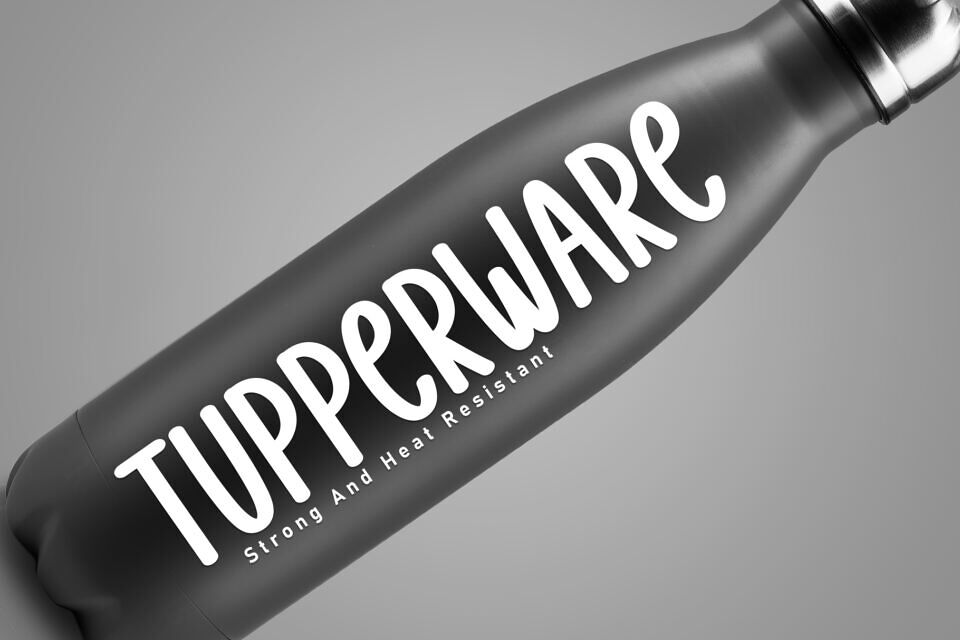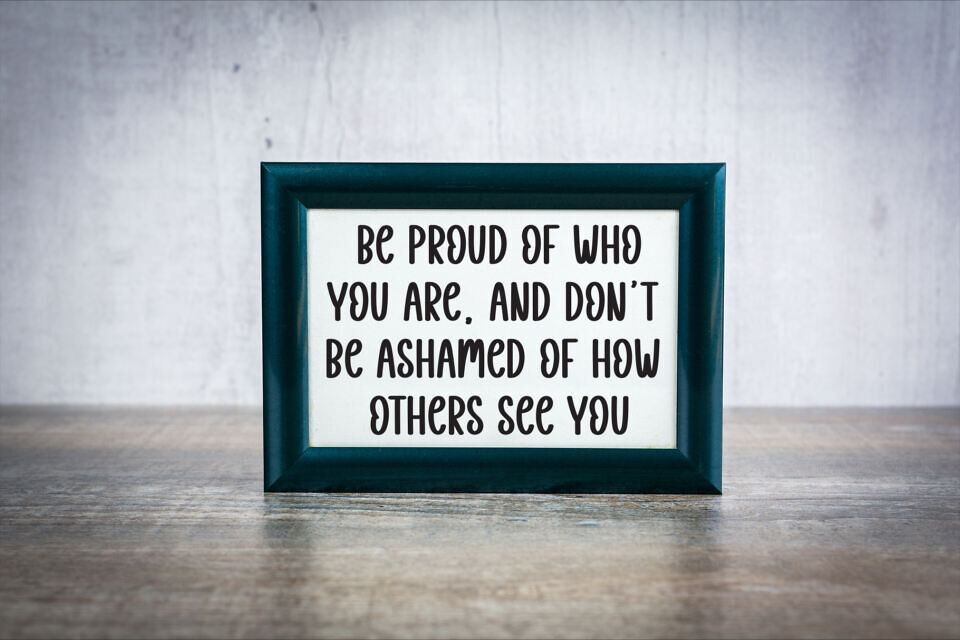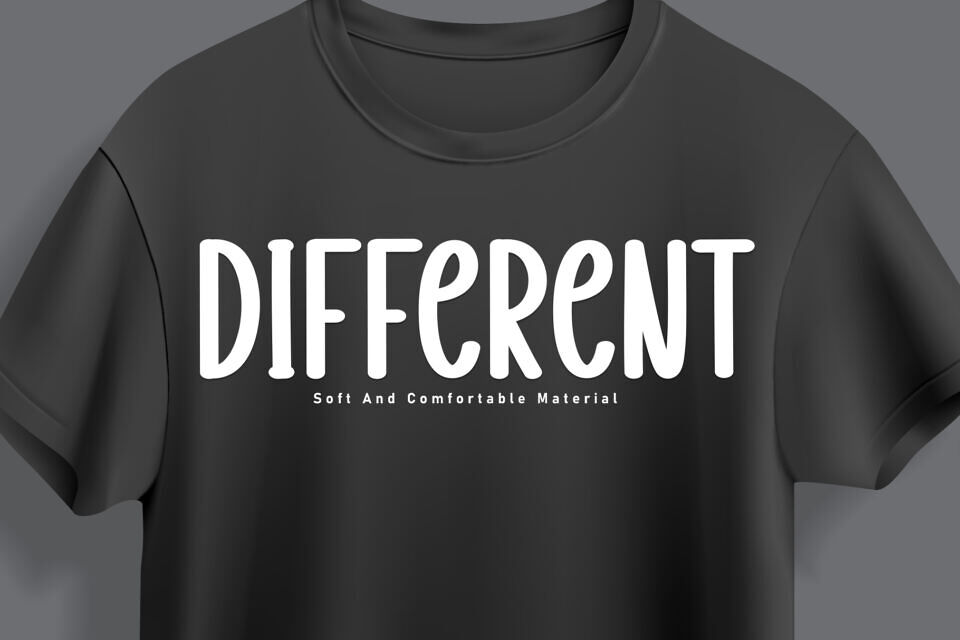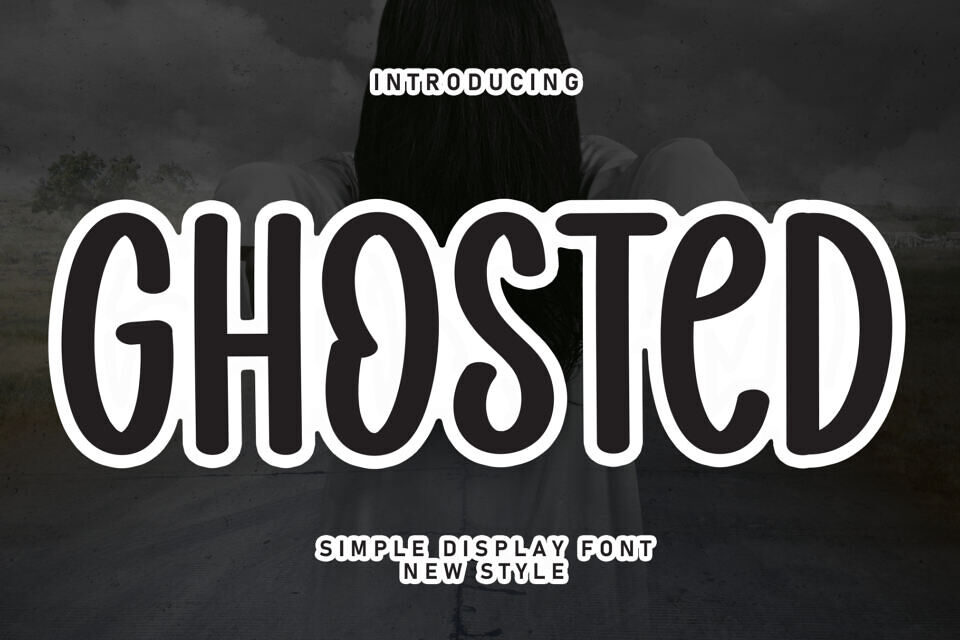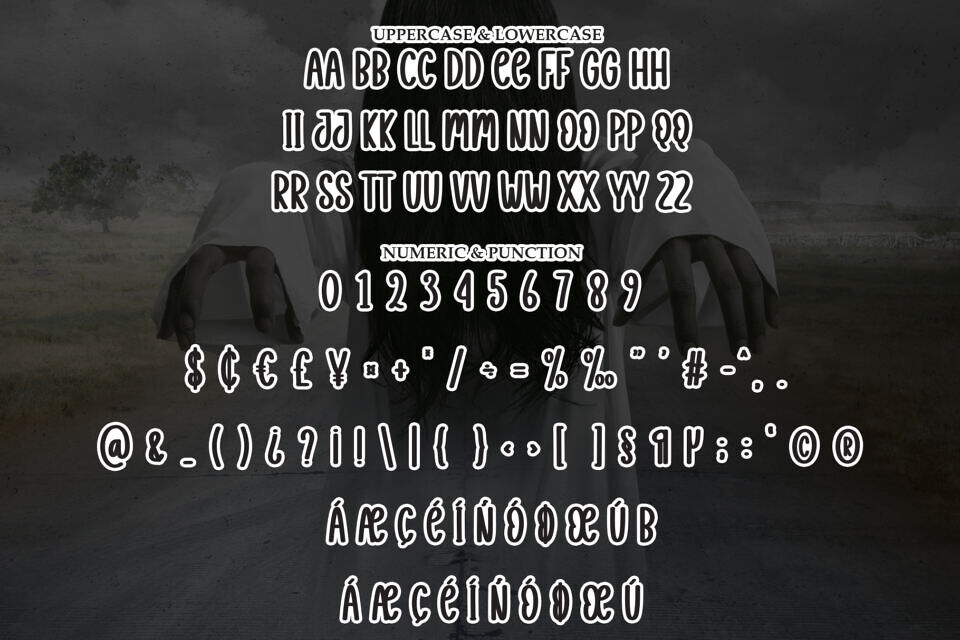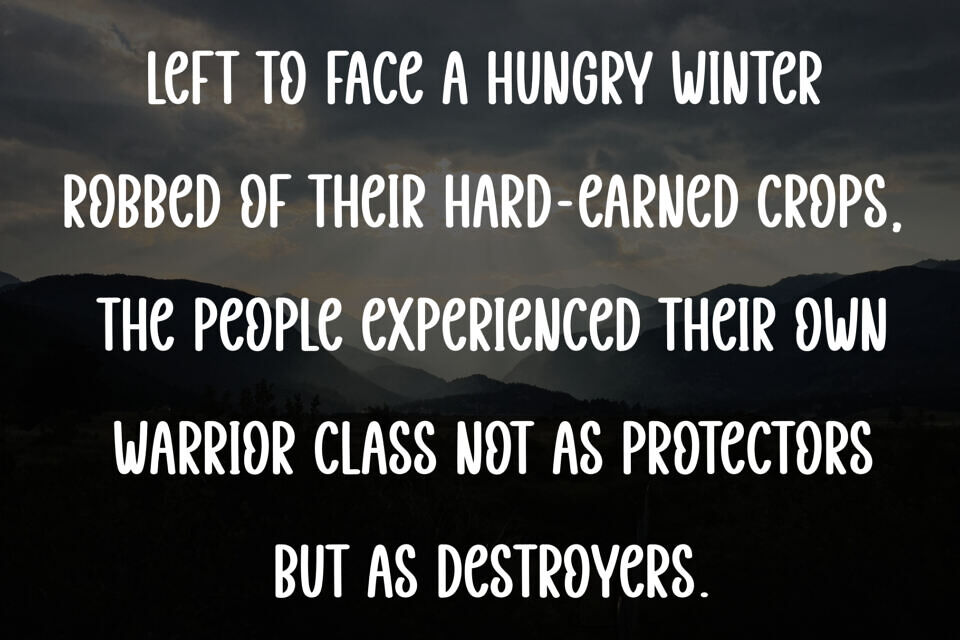
Ghosted Font
The Ghosted Font is a playful, bold typeface with a strong, handwritten character. Featuring rounded edges and a smooth, flowing design, it combines modern appeal with a slightly retro vibe.
Perfect for headlines, branding, or anything that needs a bold, yet friendly touch, the font captures attention while maintaining readability. Its quirky, ghost-like appearance adds a unique charm to any design project.